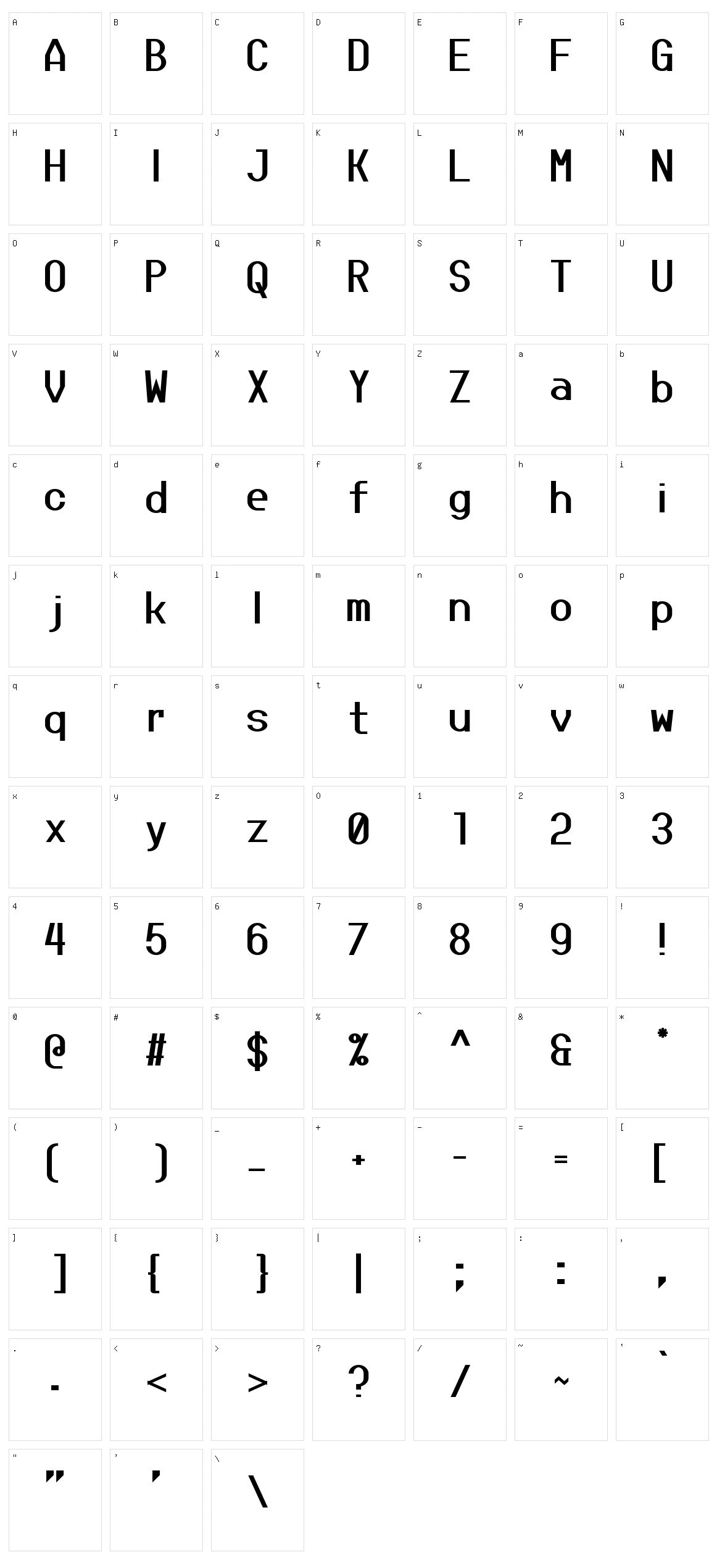
The free font Jupiteroid is carefully designed by GGBotNet, showcasing a thoughtful balance of creativity and usability and falls under the Fixed width font style. When you download the ZIP file, it contains only 340.58 KB of font files, making it lightweight and quick to download. Please review the license details below to understand permitted usage and distribution rights. If license information is not available, we recommend using this font for personal projects only or contacting the author directly for commercial usage permissions.